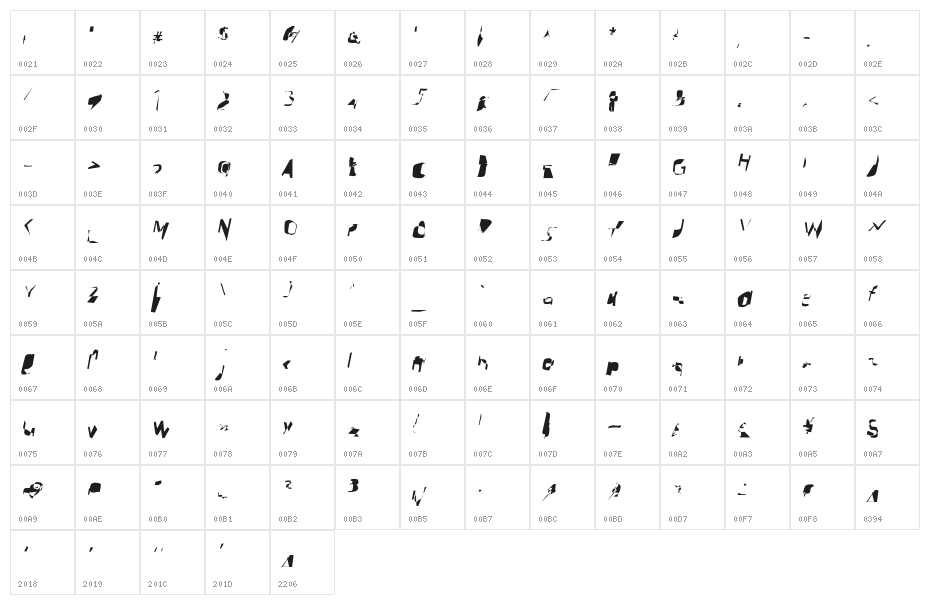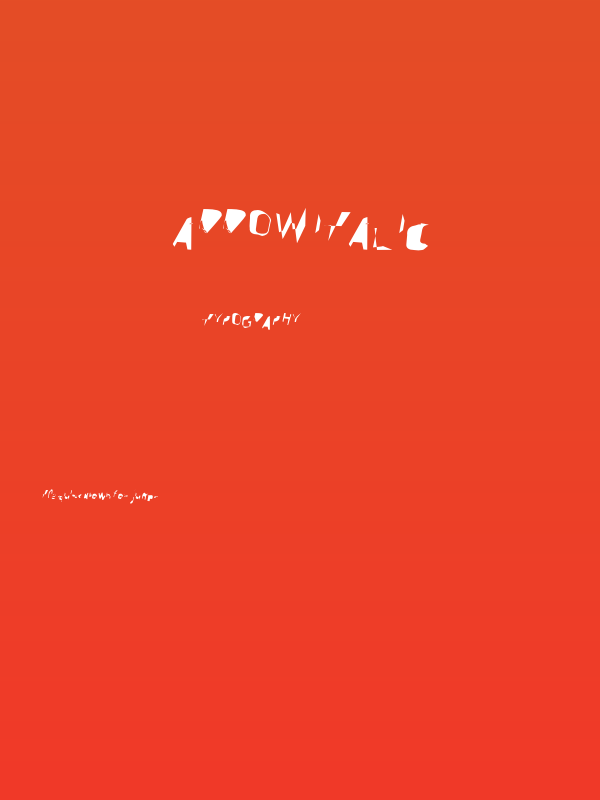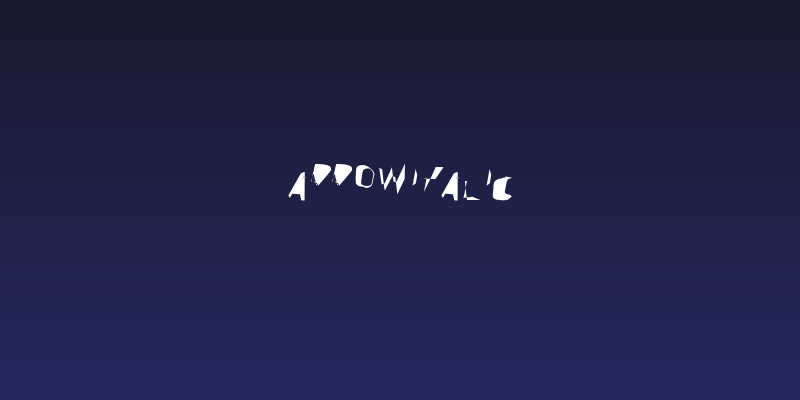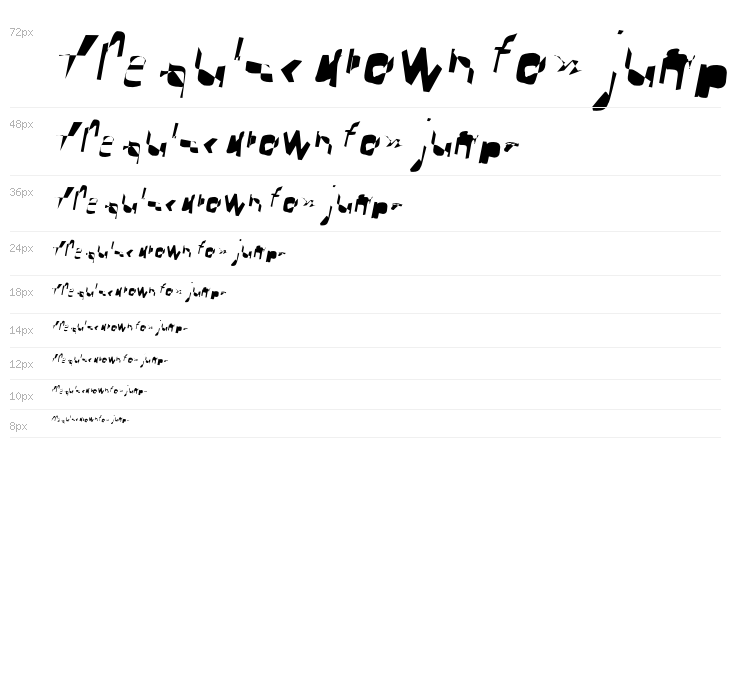
Arrow Italic Font
Arrow Italic Description
This font features a dynamic and edgy design with a distinctly italicized style. The characters are fragmented and abstract, creating a sense of movement and energy. Each letter appears to be constructed from sharp, angular shapes, giving the font a modern and avant-garde appearance. The irregularity in the character forms adds a unique, artistic flair, making it stand out in any design. The numbers and special characters follow the same fragmented style, maintaining consistency throughout the font set. This font is ideal for projects that require a bold statement and a contemporary aesthetic.
| Proposed Projects | Ideal for album covers, modern art posters, edgy branding, and avant-garde digital media. |